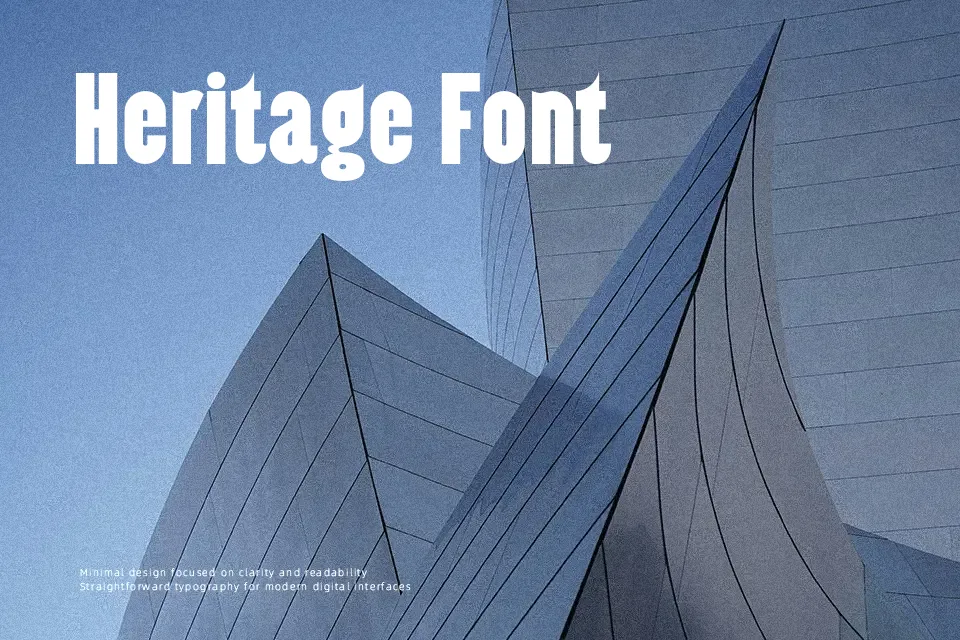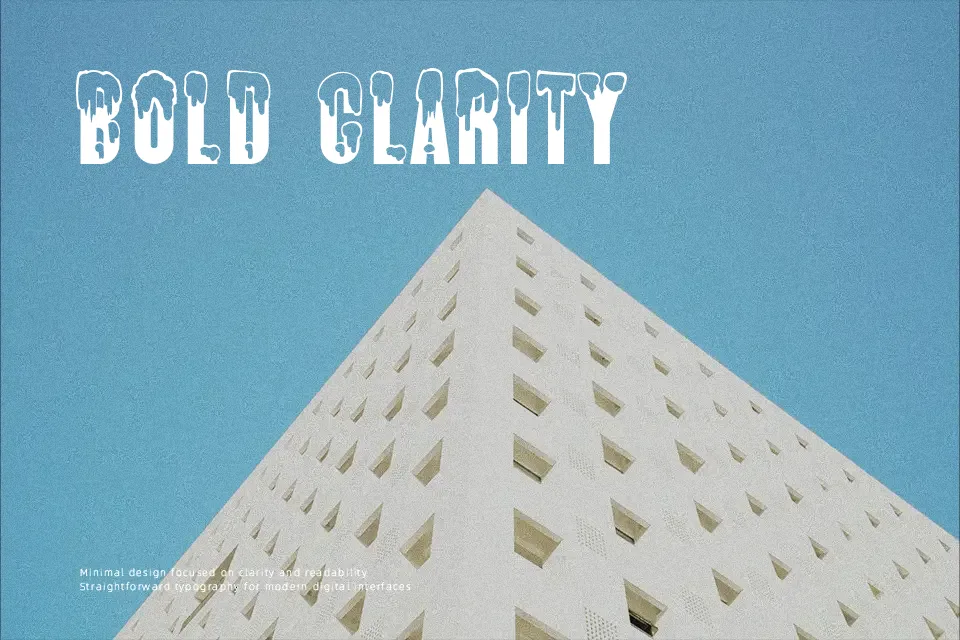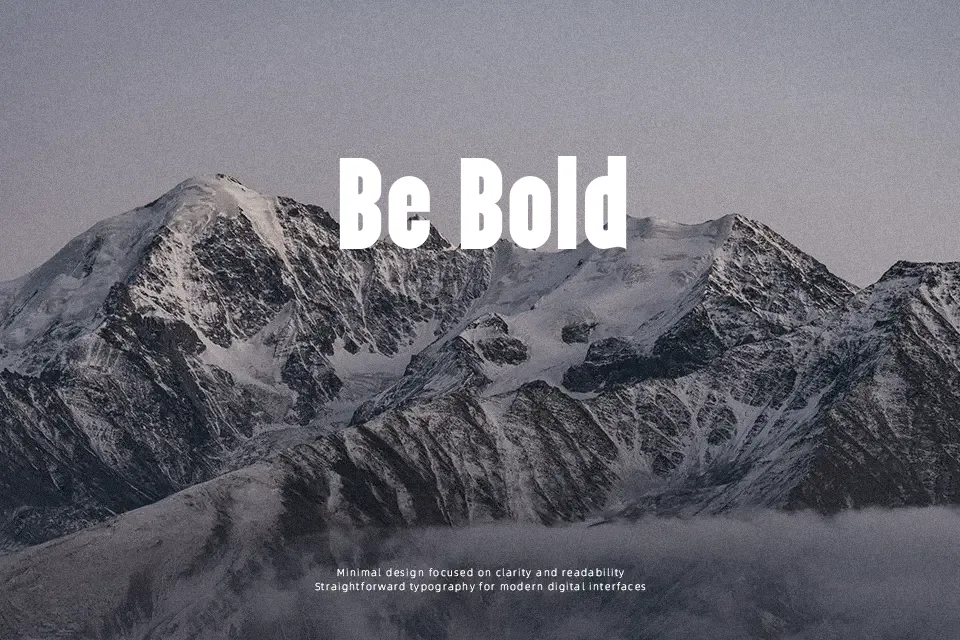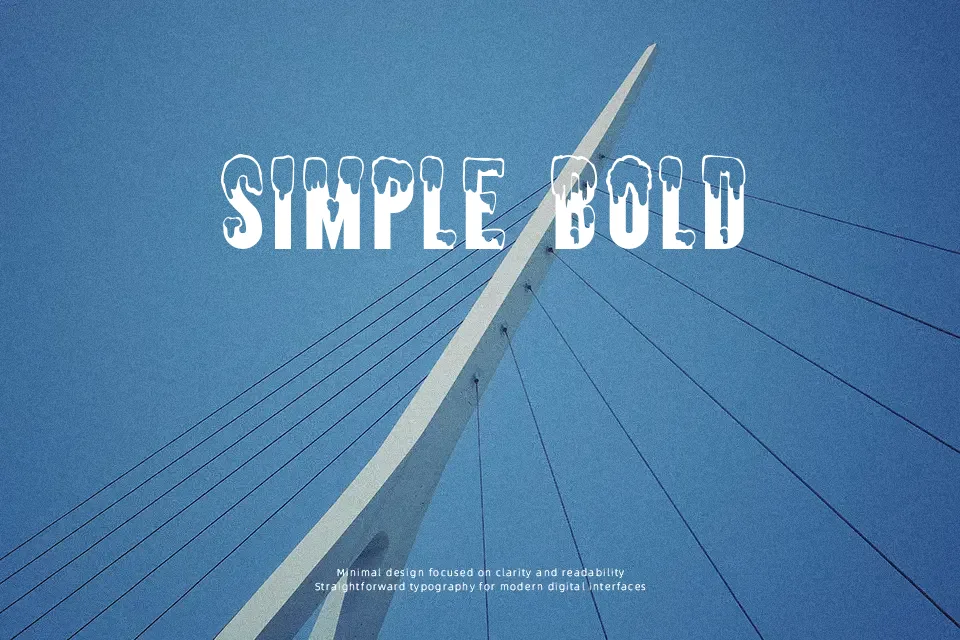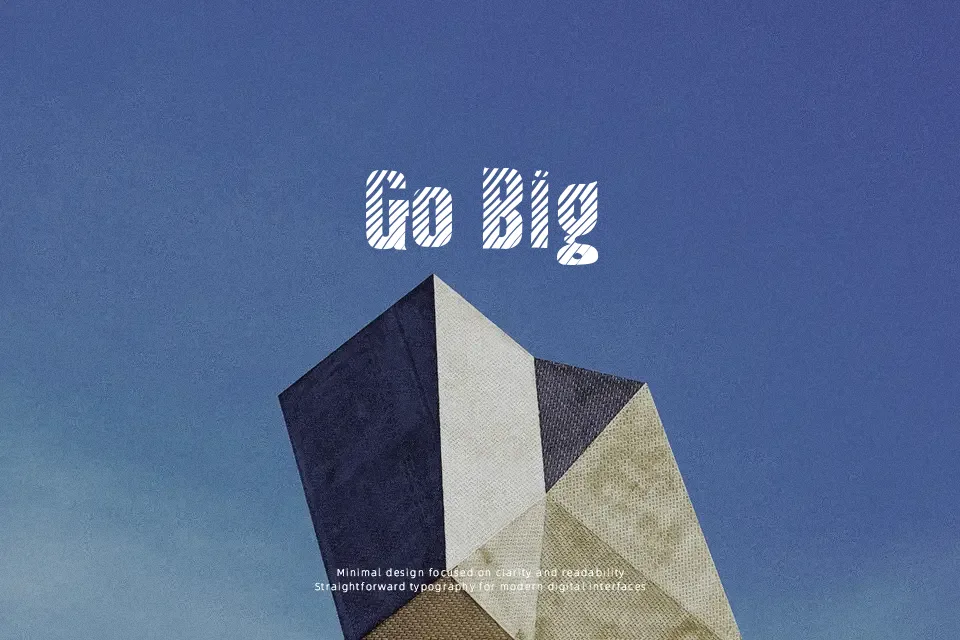
Almonte Font
Almonte carries the visual weight of worn block lettering, with thick strokes, low contrast, and a deliberately rough, hand-crafted texture that suggests aged signage rather than digital precision. Available in standard, woodgrain, and snow variants, each finish shifts the tone slightly — from rustic stoicism to ornate holiday whimsy. It works particularly well on poster headers, themed event titles, and novelty merchandise where character outweighs polish. The woodgrain variant suits steampunk or Victorian carnival aesthetics; the snow version lends itself to seasonal packaging. However, it’s not suited for anything requiring legibility at small sizes or multi-line body copy — the textured surface degrades quickly below display scale. If you need warmth without roughness, a cleaner slab serif would serve better here.
Best For:- Steampunk or Victorian-themed poster headlines
– Seasonal packaging and holiday signage
– Novelty merchandise and festival title cards
– Retro game or film title treatments
Not Ideal For:- Body text or multi-line paragraph copy
– Corporate or professional brand identity
– Small-size usage (business cards, captions)
– Digital UI labels or interface elements
Perfect for branding, film, and holiday, with a dark and decorative style.